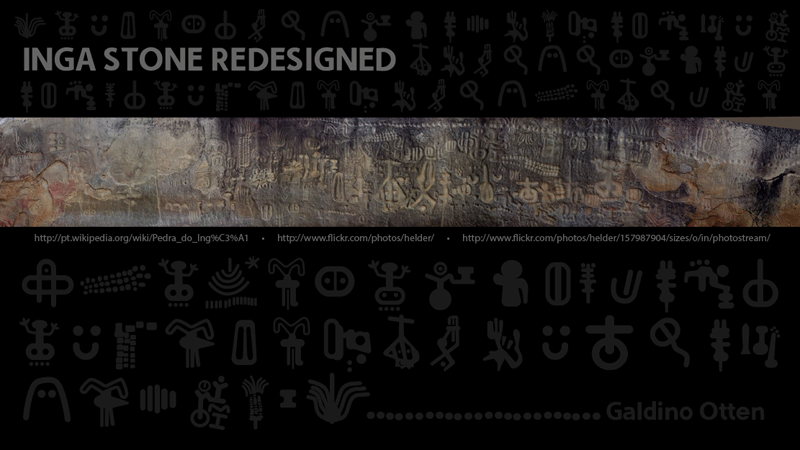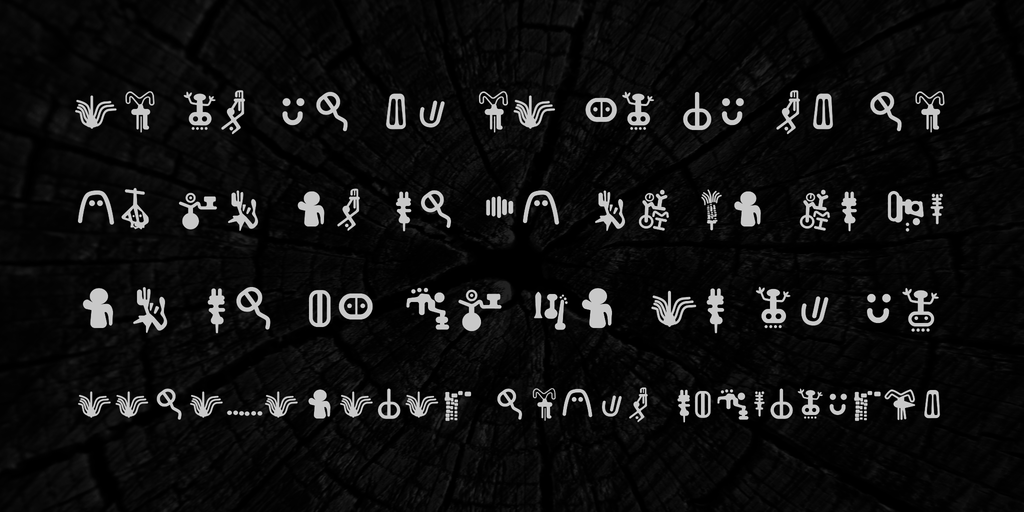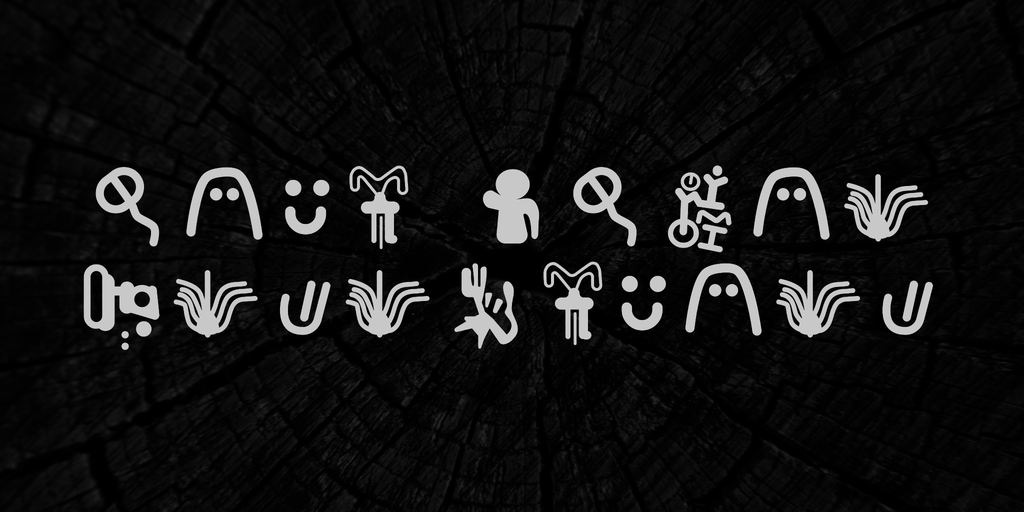
Inga Stone Redesigned Font
These icons were designed based on those symbols entrenched in low relief by pre-Columbian inhabitants in a huge stone in the city of Inga, state of Paraíba, Brazil. This is a cleaner revised version of Inga Stone Signs.Free for personal use. A donation is required for commercial use.